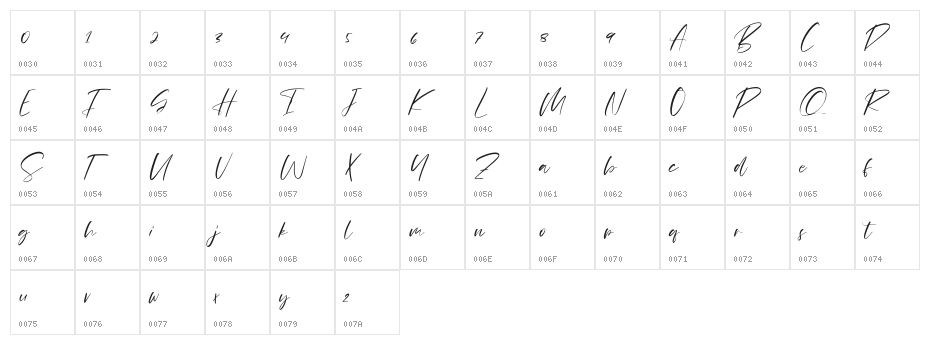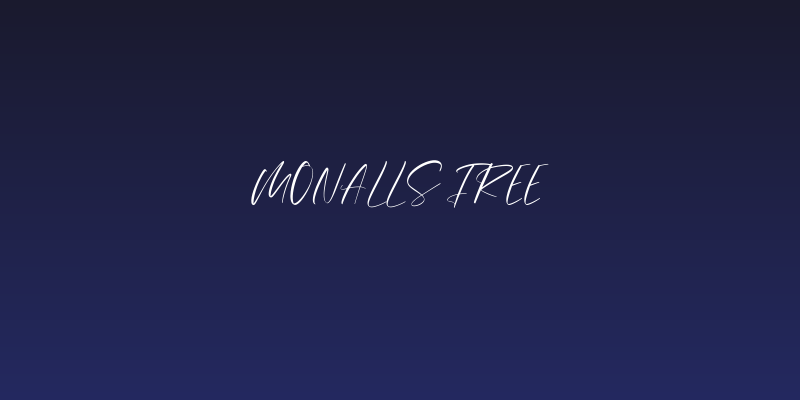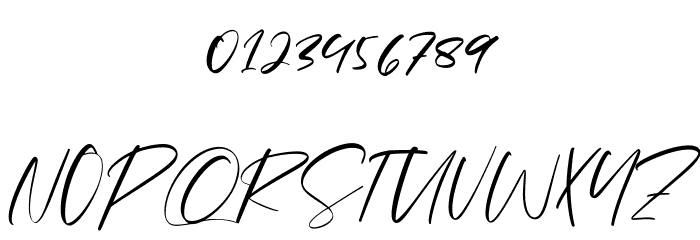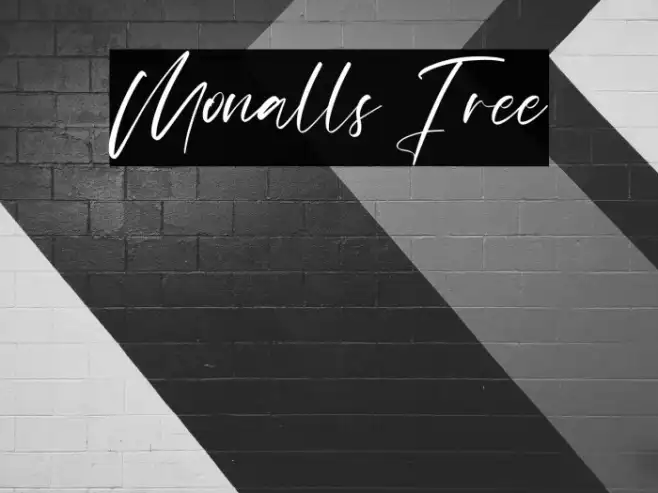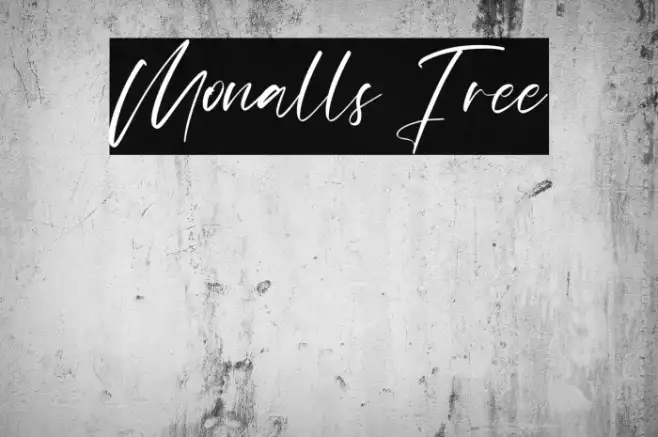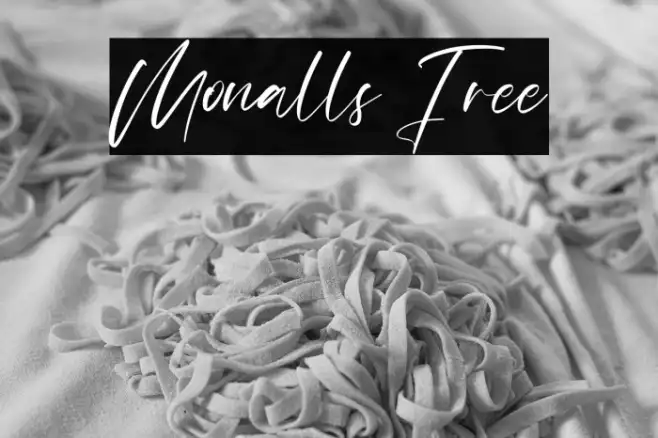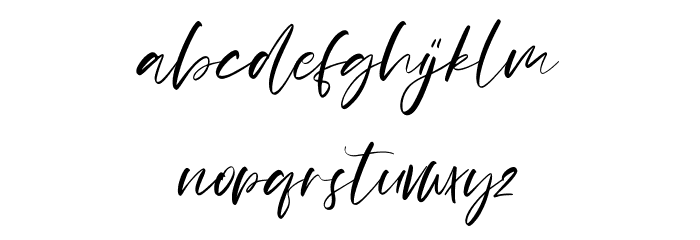
Monalls Free Font
Monalls Free Description
This font features an elegant and flowing script style, characterized by its smooth, cursive strokes and a sense of fluidity. The uppercase letters are tall and slender, with a slight slant that adds a dynamic feel. The lowercase letters maintain a consistent style, with loops and swirls that enhance its decorative appearance. The numerals are designed to match the script's overall aesthetic, maintaining the same graceful curves. This font is particularly suited for creative and artistic projects, where a touch of sophistication and flair is desired. The special characters blend seamlessly with the rest of the set, ensuring a cohesive look across all text elements.